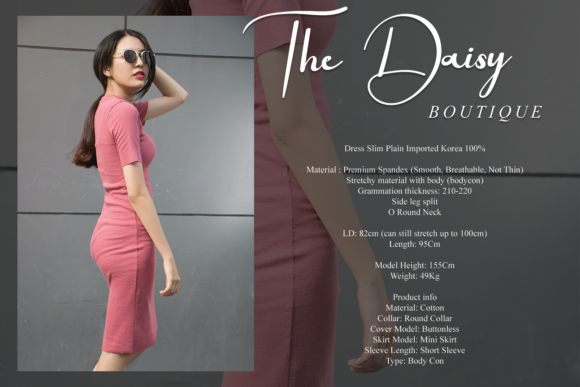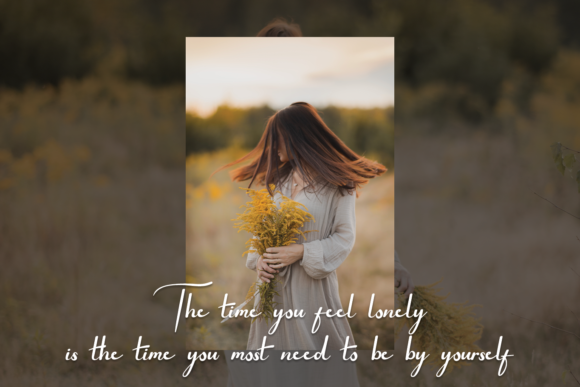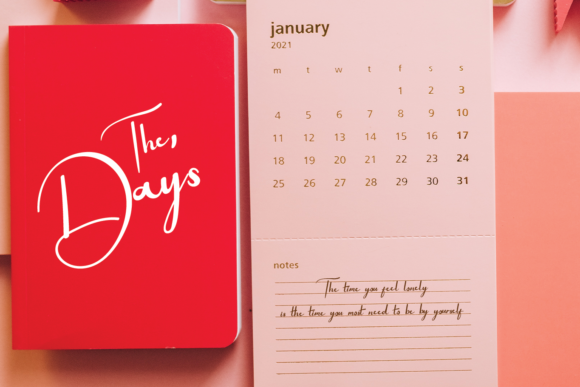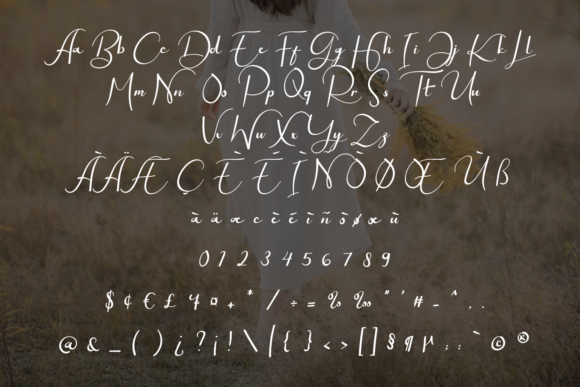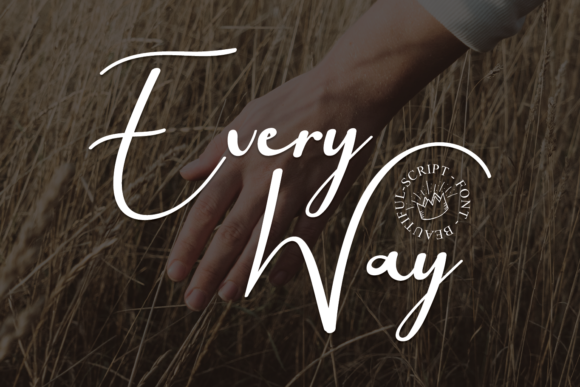
Discover the Elegance of Every Way Font: Elevate Your Designs with a Timeless Style
Are you on the hunt for a font that adds a touch of elegance and sophistication to your designs? Look no further than the Every Way font, a beautiful, flowing handwritten font that is sure to capture your heart. With its incredibly distinct and timeless style, Every Way is perfect for designers and crafters looking to create spectacular designs that stand out from the crowd.
The Characteristics of Every Way Font
Every Way font is described by its elegant touch, which is evident in its smooth, flowing lines and curves. This handwritten font is designed to mimic the natural flow of handwriting, giving it a personal and unique feel that is hard to replicate with traditional fonts. The result is a font that feels both classic and modern, making it suitable for a wide range of design projects.
What Makes Every Way Font So Special?
So, what sets Every Way font apart from other fonts on the market? Here are just a few of its standout features:
• Elegant and Refined: Every Way font boasts an elegant and refined style that is perfect for designs that require a touch of sophistication.
• Timeless Appeal: Unlike trendy fonts that quickly go out of style, Every Way font has a timeless appeal that ensures your designs will remain stylish for years to come.
• Versatile: Whether you’re working on a branding project, a wedding invitation, or a craft project, Every Way font is versatile enough to adapt to any design style.
• Distinctive: With its unique, flowing lines and curves, Every Way font is sure to make your designs stand out from the crowd.
How to Use Every Way Font in Your Designs
Every Way font is incredibly easy to use and can be incorporated into a wide range of design projects. Here are just a few ideas to get you started:
• Branding and Logos: Use Every Way font to create a unique and memorable logo that reflects your brand’s personality and style.
• Wedding Invitations: Add a touch of elegance and sophistication to your wedding invitations with Every Way font.
• Crafting and Scrapbooking: Every Way font is perfect for crafters and scrapbookers looking to add a personal touch to their projects.
• Digital Designs: Use Every Way font in your digital designs, such as social media graphics, blog posts, and email newsletters.
Tips for Getting the Most Out of Every Way Font
To get the most out of Every Way font, here are a few tips to keep in mind:
• Experiment with Different Sizes: Every Way font looks great in a variety of sizes, so don’t be afraid to experiment to find the perfect size for your design.
• Pair it with Other Fonts: Every Way font pairs well with a range of other fonts, so try combining it with different fonts to create a unique and interesting design.
• Use it to Create Contrast: Use Every Way font to create contrast in your design by pairing it with simpler or bolder fonts.
Every Way font is a beautiful, elegant, and timeless font that is perfect for designers and crafters looking to add a touch of sophistication to their designs. With its incredibly distinct and flowing style, Every Way font is sure to make your designs stand out from the crowd. Whether you’re working on a branding project, a wedding invitation, or a craft project, Every Way font is a versatile and stylish choice that is sure to impress.